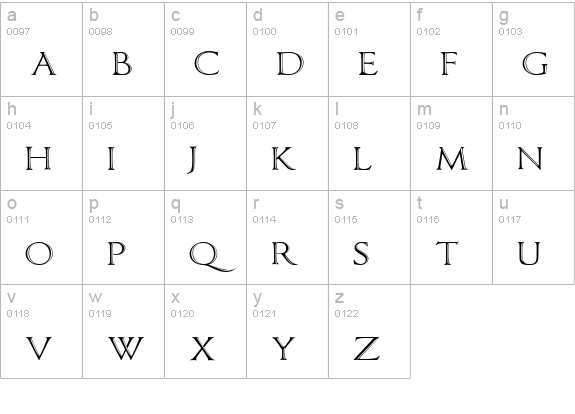
ImperatorBronzeSmallCaps Font Details
ImperatorBronzeSmallCaps is a stunning font that exudes elegance and sophistication. With its intricate detailing and refined strokes, this font is perfect for creating a timeless and impactful design. It combines the classic beauty of small caps with a touch of modernity, making it versatile for a wide range of design projects. This font is freely available to download at FontsMarket.com, allowing designers and creatives to easily access and incorporate it into their work. Whether you're designing a logo, creating a brand identity, or crafting a stylish invitation, ImperatorBronzeSmallCaps will elevate your design and captivate your audience. The attention to detail in this font is truly remarkable. Each letter has been meticulously crafted, ensuring a seamless and harmonious flow throughout your design. The bronze-like finish adds a touch of sophistication, making it the perfect choice for luxury brands, high-end products, or any design that requires a touch of opulence. ImperatorBronzeSmallCaps is not just a font, but a statement. It embodies the essence of timeless beauty and refinement, adding a touch of regality to any project. Its versatility allows it to be paired with a variety of other fonts, creating a harmonious and visually stunning composition. Whether you're a professional designer or a casual creator, ImperatorBronzeSmallCaps is a font that will elevate your work to new heights. Its freely available download at FontsMarket.com ensures that everyone can benefit from its elegance and beauty. So why wait? Download ImperatorBronzeSmallCaps today and let your creativity shine.